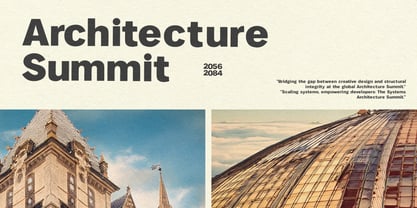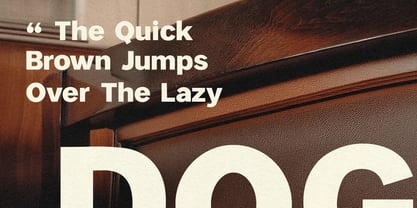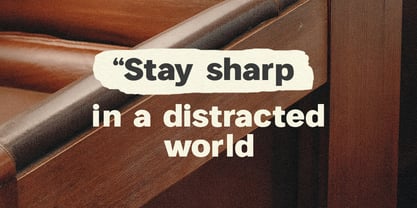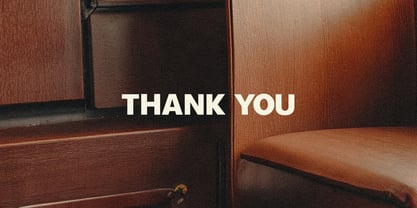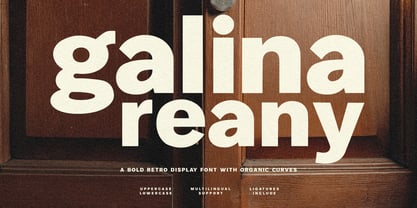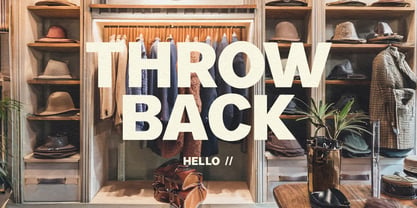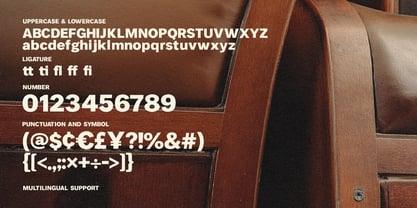
MC Galina Reany
by Maulana Creative
The MC Galina Reany Font Family was designed by Gilang Maulana and published by Maulana Creative. MC Galina Reany contains 1 styles. More about this family
Galina Reany is a striking display font that perfectly balances vintage charm with modern boldness. Featuring heavy, ultra-thick letterforms and smooth, liquid-like curves, this typeface draws inspiration from the 1970s psychedelic era while maintaining a clean, contemporary edge. Its high-contrast structure makes it an ideal choice for eye-catching headlines, organic branding, eco-friendly packaging, and creative posters. Whether you're designing for a nature-themed project or a bold fashion statement, Galina Reany brings a grounded yet expressive personality to every layout.
Designers: Gilang Maulana
Foundry: Maulana Creative